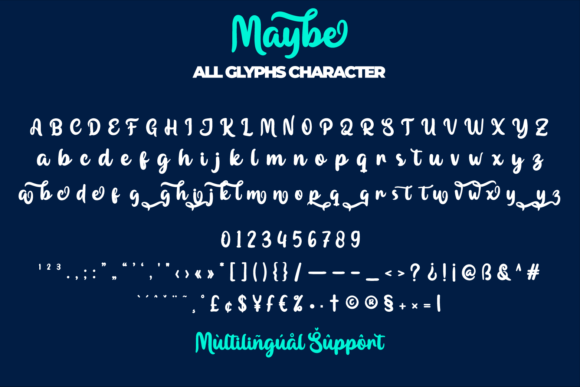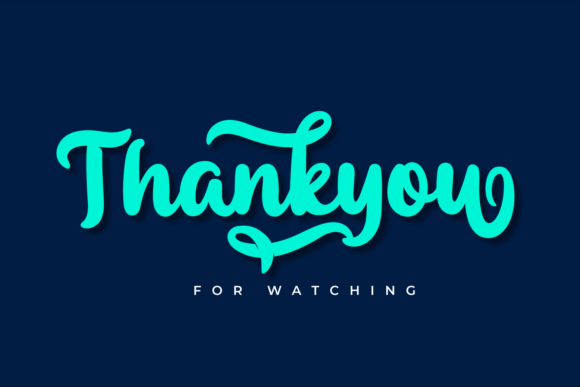
About Maybe Font
Maybe is a sweet, brushed handwritten font. It has a cute flow and is incredibly versatile, fitting a wide range of designs. This font is PUA encoded which means you can access all of the glyphs and swashes with ease!